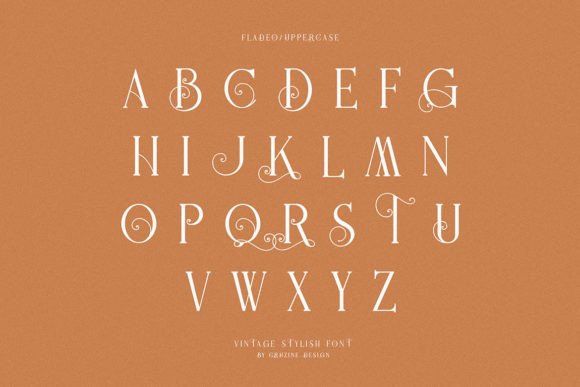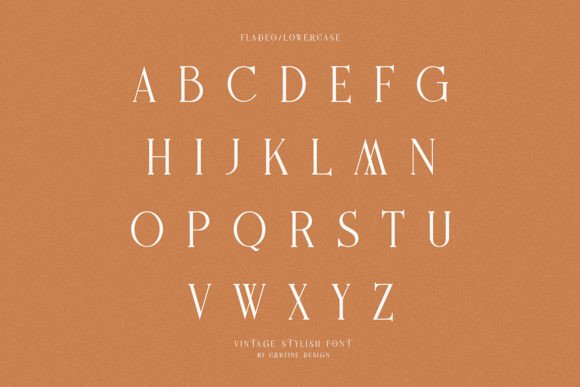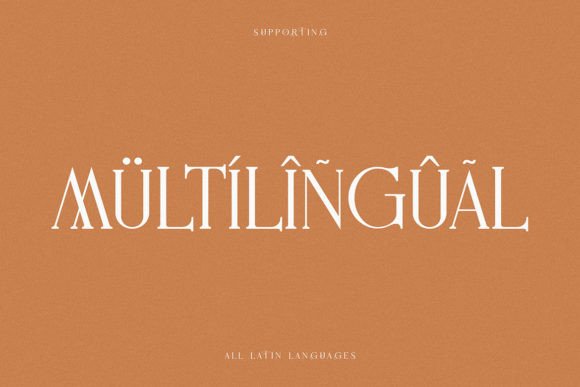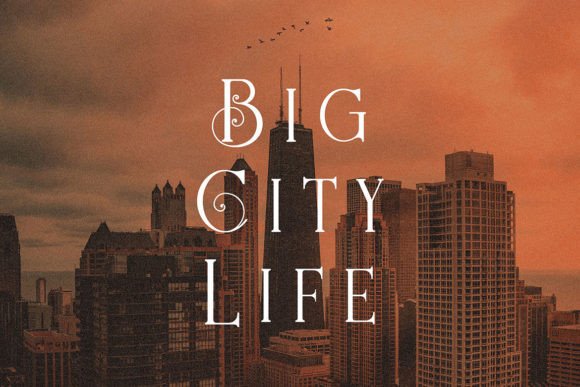
Introducing Fladeo Font: Elevate Your Designs with Sophistication and Elegance
In the world of design, typography plays a crucial role in conveying the tone and personality of a brand or project. A well-chosen font can make all the difference in creating a lasting impression on your audience. If you’re looking for a font that exudes luxury, refinement, and sophistication, look no further than Fladeo Font. This stunning serif font is designed to elevate any project to new heights of elegance and style, making it perfect for high-end branding, packaging, and editorial design.
The Art of Elegance: Fladeo’s Design
Fladeo Font is a masterpiece of typographic design, boasting intricate details and elegant curves that create a refined and classy look. Its serif design adds a touch of tradition and sophistication, while its unique flair and swashes inject a sense of creativity and playfulness. Whether you’re working on a luxury brand identity, a high-end product packaging, or a stylish editorial project, Fladeo Font is the perfect choice to add a dash of elegance and refinement.
Key Features of Fladeo Font
- PUA Encoding: Fladeo Font is PUA (Private Use Area) encoded, which means you can access all glyphs and swashes effortlessly. This feature allows you to explore the full creative potential of the font, making it easy to add intricate details and flourishes to your designs.
- Intricate Details: Fladeo Font features intricate details and elegant curves that create a refined and classy look. These details add a level of sophistication and luxury to your designs, making them stand out from the crowd.
- Elegant Swashes: The font comes with a range of elegant swashes that can be used to add a touch of creativity and flair to your designs. These swashes can be used to create stunning headings, titles, and typographic elements that demand attention.
- Serif Design: Fladeo Font’s serif design adds a touch of tradition and sophistication to your designs. The serifs also help to create a sense of continuity and flow, making the text more readable and engaging.
Use Cases for Fladeo Font
Fladeo Font is a versatile typographic solution that can be used in a variety of design projects, including:
- Luxury Branding: Create a lasting impression on your audience with Fladeo Font’s elegant and sophisticated design. Use it to develop a luxury brand identity that exudes refinement and style.
- High-End Packaging: Add a touch of luxury and sophistication to your product packaging with Fladeo Font. Its intricate details and elegant curves create a refined and classy look that’s perfect for high-end products.
- Editorial Design: Use Fladeo Font to create stunning editorial designs that showcase your creativity and style. Its elegant swashes and intricate details make it perfect for headings, titles, and typographic elements.
Why Choose Fladeo Font?
With so many fonts available, why choose Fladeo Font? Here are just a few reasons why Fladeo Font stands out from the crowd:
- Unique Design: Fladeo Font boasts a unique design that’s unlike any other font on the market. Its intricate details and elegant curves create a refined and classy look that’s sure to turn heads.
- High-Quality Typography: Fladeo Font is designed with high-quality typography in mind. Its PUA encoding and elegant swashes make it easy to create stunning typographic elements that demand attention.
- Versatility: Fladeo Font is a versatile typographic solution that can be used in a variety of design projects. Whether you’re working on a luxury brand identity, a high-end product packaging, or a stylish editorial project, Fladeo Font is the perfect choice.
In conclusion, Fladeo Font is a stunning serif font that’s designed to elevate any project to new heights of sophistication and elegance. Its intricate details, elegant curves, and PUA encoding make it the perfect choice for high-end branding, packaging, and editorial design. With its unique design, high-quality typography, and versatility, Fladeo Font is a must-have for any designer or craft looking to add a touch of luxury and refinement to their projects.